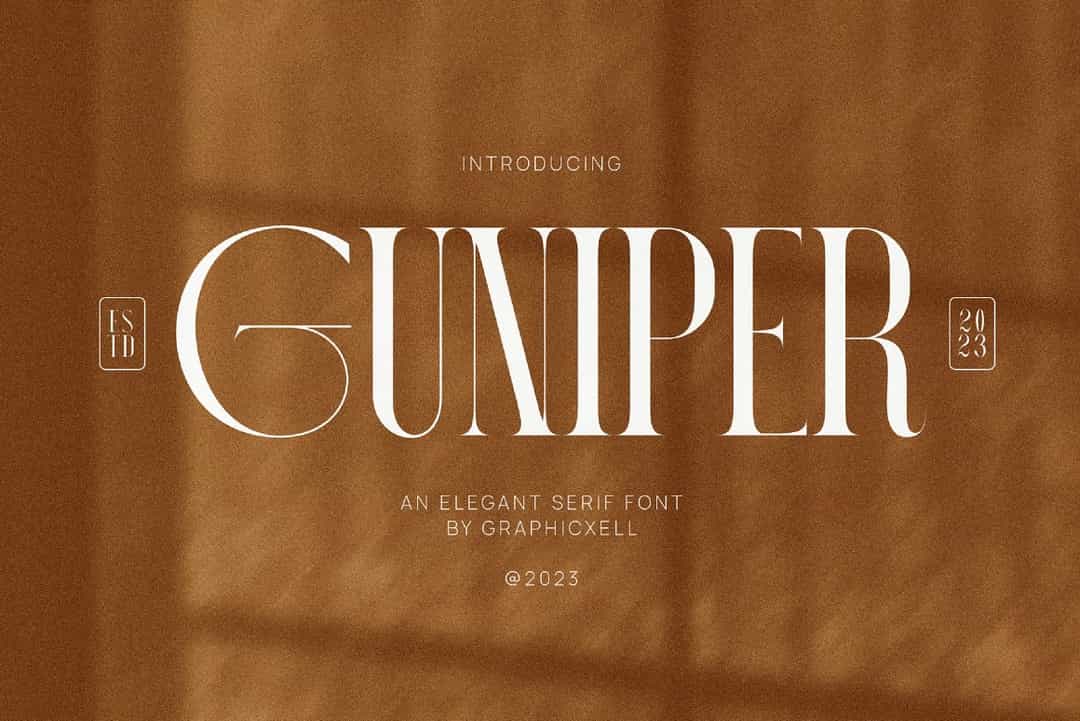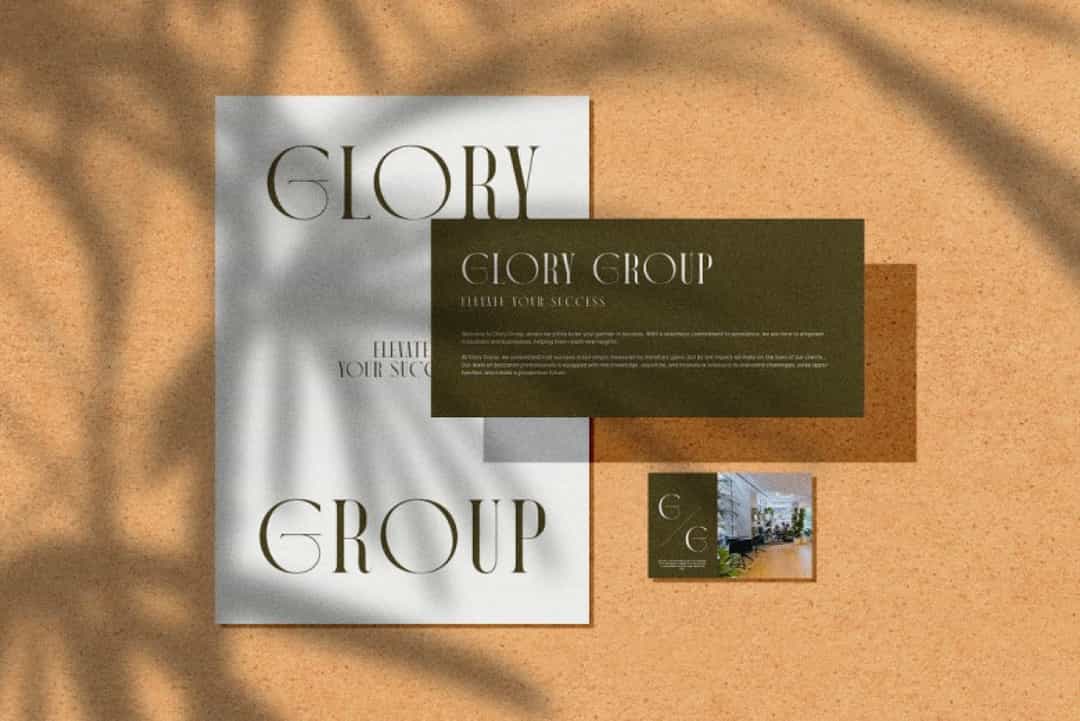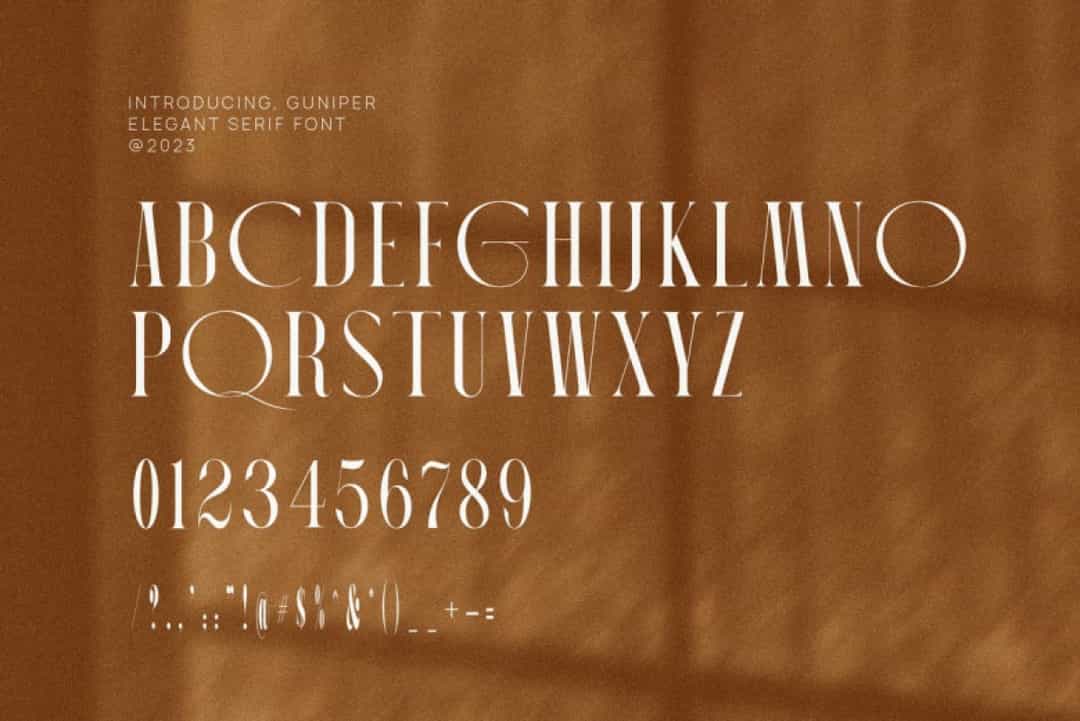
Guniper can be described as an original and elegant serif typeface ideal for use in logo and branding designs. Featuring its striking serifs combined with sophisticated, contemporary style, Guniper is suitable for various needs in branding projects and is the ideal font choice to achieve them.